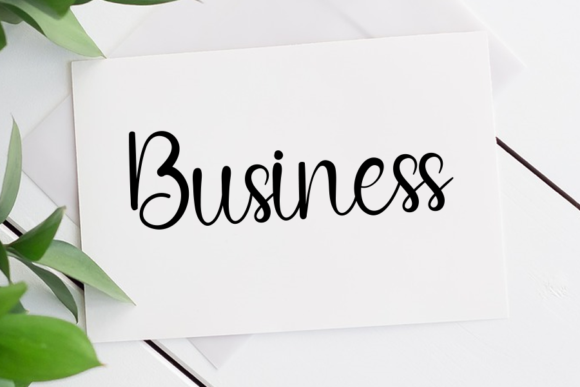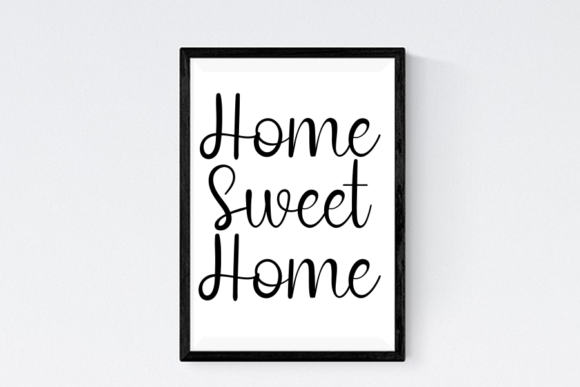
Baby Dragon Font
db-ku.com - Script & Handwritten -- Baby Dragon is a delicate handwritten font that has a modern yet whimsical style. It will undoubtedly immerse your designs into a magical world.